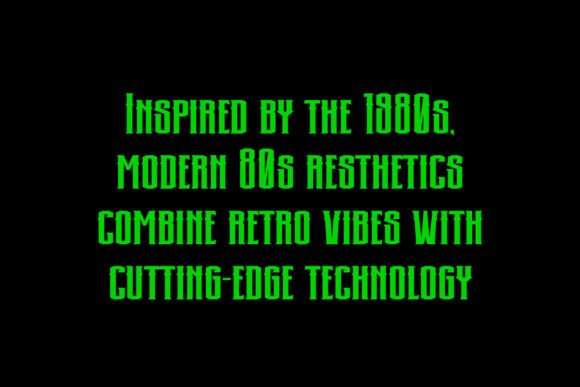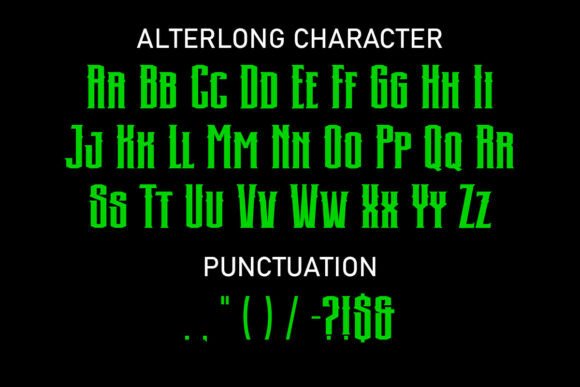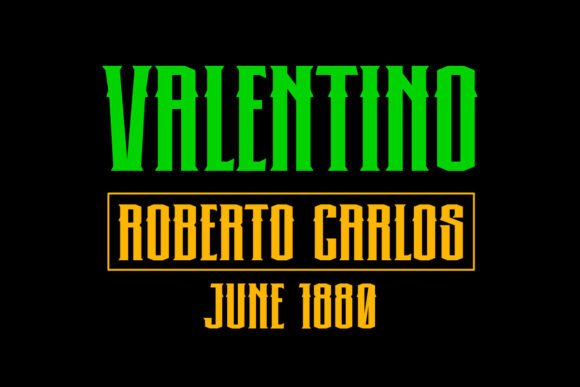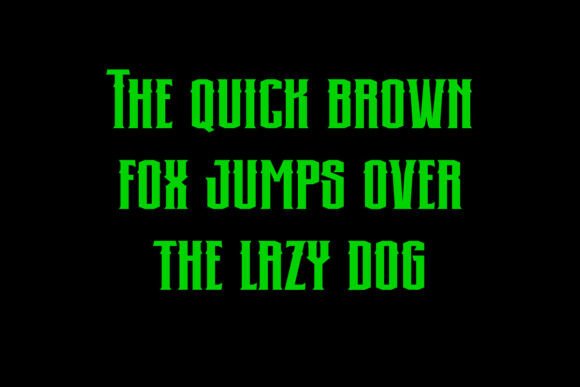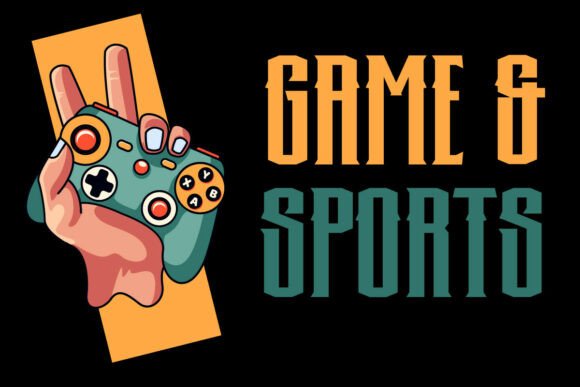
Discover the Bold and Futuristic Alterlong Font: A Perfect Blend of Modern Blackletter and Neo-Gothic Style
In the world of typography, fonts play a crucial role in defining the aesthetic and tone of a design. For designers and crafters looking for a bold and modern blackletter font with a neo-gothic edge, Alterlong is an excellent choice. This unique font blends futuristic minimalism with vintage charm, making it perfect for a wide range of design projects.
Inspiration from 80s Synthwave and Digital Aesthetics
Alterlong draws inspiration from the iconic 80s synthwave and digital aesthetics, which is evident in its sharp vertical forms, geometric serifs, and sleek lines. This font combines the nostalgia of the past with the innovation of the future, creating a distinctive and captivating visual identity.
The 80s synthwave movement, known for its retro-futuristic style, has influenced the design of Alterlong. The font’s bold and edgy appearance is reminiscent of the neon-lit cityscapes and futuristic landscapes often depicted in synthwave art. By incorporating these elements, Alterlong brings a touch of nostalgia and sophistication to any design.
Key Features of Alterlong Font
Alterlong boasts several key features that make it an exceptional choice for designers:
- Bold and Blackletter Style: Alterlong’s bold and blackletter style gives it a commanding presence, making it perfect for headlines, posters, and titles.
- Neo-Gothic Edge: The font’s neo-gothic edge adds a touch of elegance and sophistication, making it suitable for a wide range of design projects.
- Geometric Serifs and Sleek Lines: The geometric serifs and sleek lines in Alterlong create a futuristic and minimalist look, giving it a unique and modern aesthetic.
- Sharp Vertical Forms: The sharp vertical forms in Alterlong add to its bold and edgy appearance, making it perfect for designs that require a strong visual impact.
Alterlong’s versatility makes it an excellent choice for various design projects, including:
- Posters and Flyers: Alterlong’s bold and eye-catching style makes it perfect for posters and flyers that require a strong visual impact.
- Album Covers: The font’s neo-gothic edge and futuristic minimalism make it an excellent choice for album covers, especially for music genres like synthwave, industrial, and darkwave.
- Logos and Branding: Alterlong’s unique and captivating style makes it perfect for logos and branding projects that require a distinctive visual identity.
- Apparel and Merchandise: The font’s bold and edgy appearance makes it suitable for apparel and merchandise designs, such as t-shirts, hoodies, and stickers.
Why Choose Alterlong Font?
Alterlong offers a unique combination of gothic tradition and cyberpunk flair, making it a versatile choice for both modern and retro-futuristic projects. Here are some reasons why designers and crafters should choose Alterlong:
- Unique and Captivating Style: Alterlong’s distinctive style sets it apart from other fonts, making it perfect for designers looking for a bold and eye-catching typography.
- High-Quality Design: The font is designed with high-quality and precision, ensuring that it looks great in any design project.
In conclusion, Alterlong is an exceptional font that brings attitude and sophistication to every design. Its unique blend of modern blackletter and neo-gothic style, combined with its futuristic minimalism and vintage charm, make it a versatile choice for a wide range of design projects. Whether you’re a designer or crafter looking for a bold and eye-catching typography, Alterlong is an excellent choice.